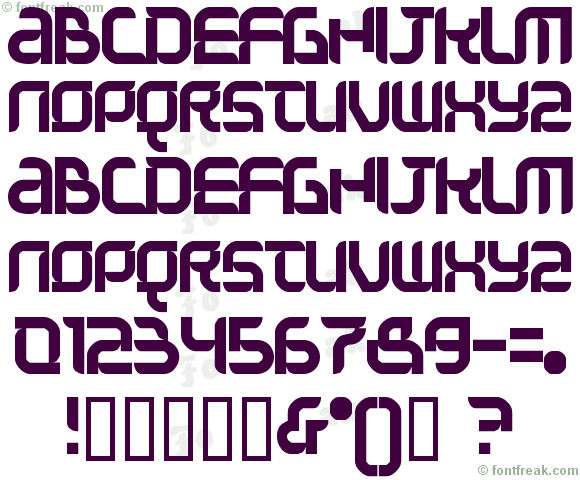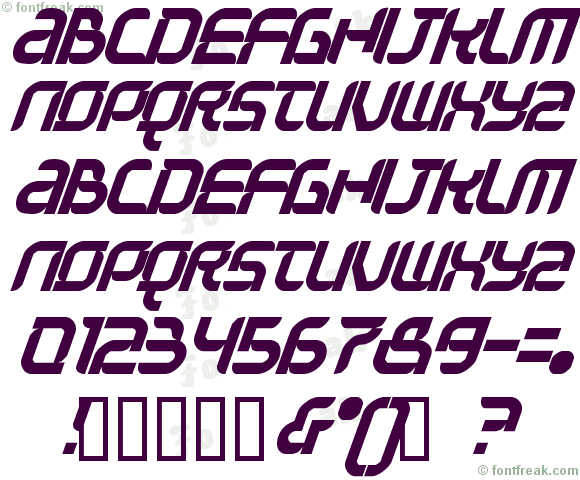
Question of time
Question of time simple
About Question Of Time
The Question Of Time font by Pizzadude is a captivating display typeface that beautifully blends simplicity with a touch of whimsy. This font features a unique sans-serif style characterized by smooth, rounded letterforms and a consistent stroke weight that creates a harmonious flow. The generous spacing between characters enhances readability while giving it an airy feel, making it suitable for various design applications. The font’s playful nature is accentuated by subtle decorative elements, such as slight curves and unique character shapes, adding a distinctive flair that stands out in any project.
Ideal for a range of creative uses, the Question Of Time font is perfect for wedding invitations, where its charm can convey a sense of elegance and joy. It also works wonderfully for movie posters, bringing an engaging visual appeal that draws in viewers. Restaurant menus can benefit from its inviting look, helping to create a warm atmosphere that reflects the dining experience. Additionally, small business owners and content creators will find this font advantageous for branding materials, social media graphics, and promotional content that requires a friendly yet professional touch.